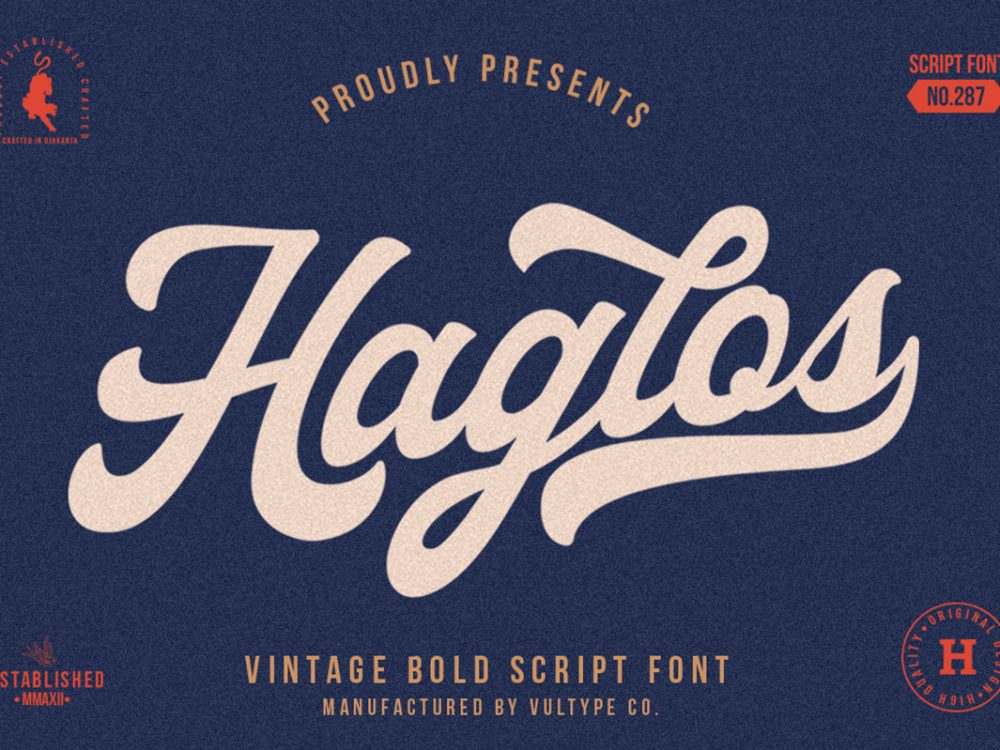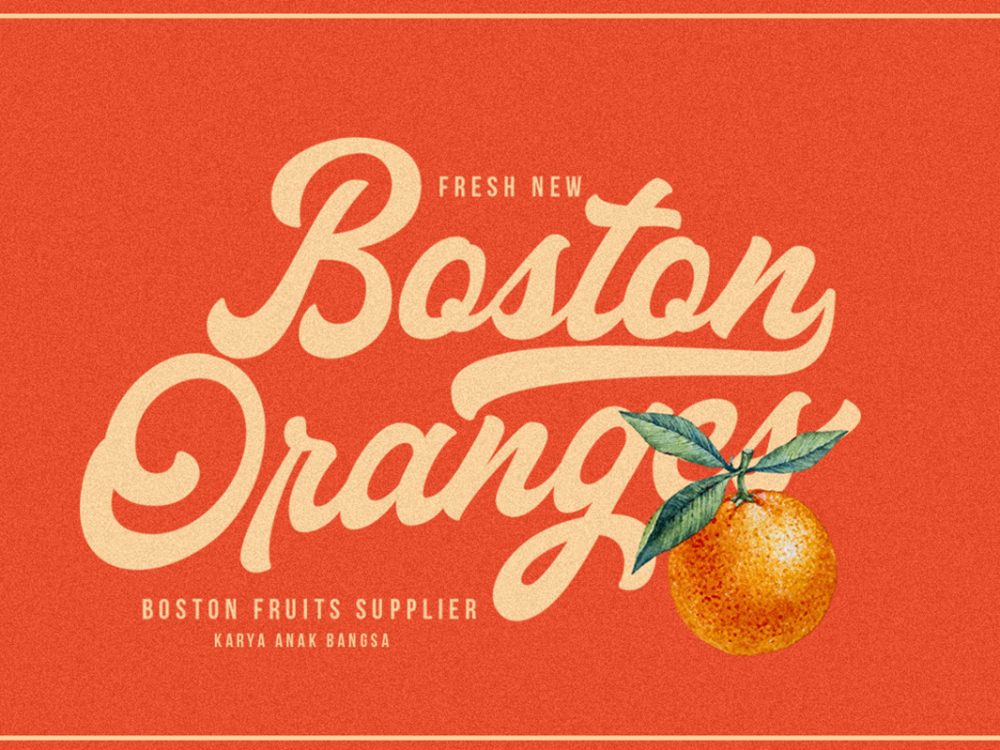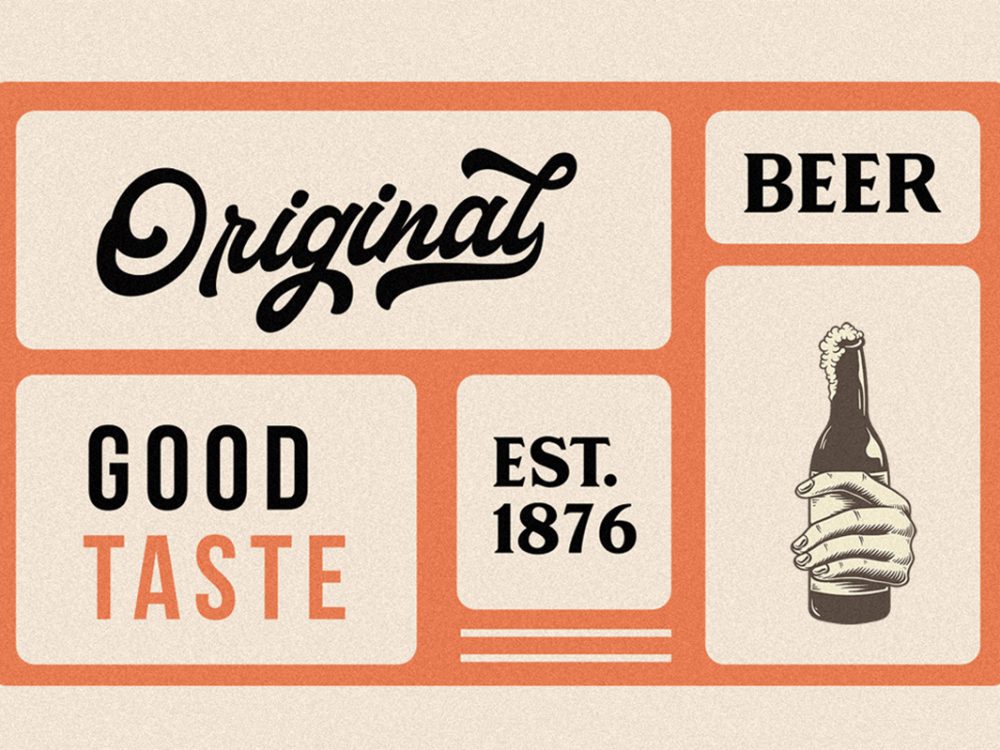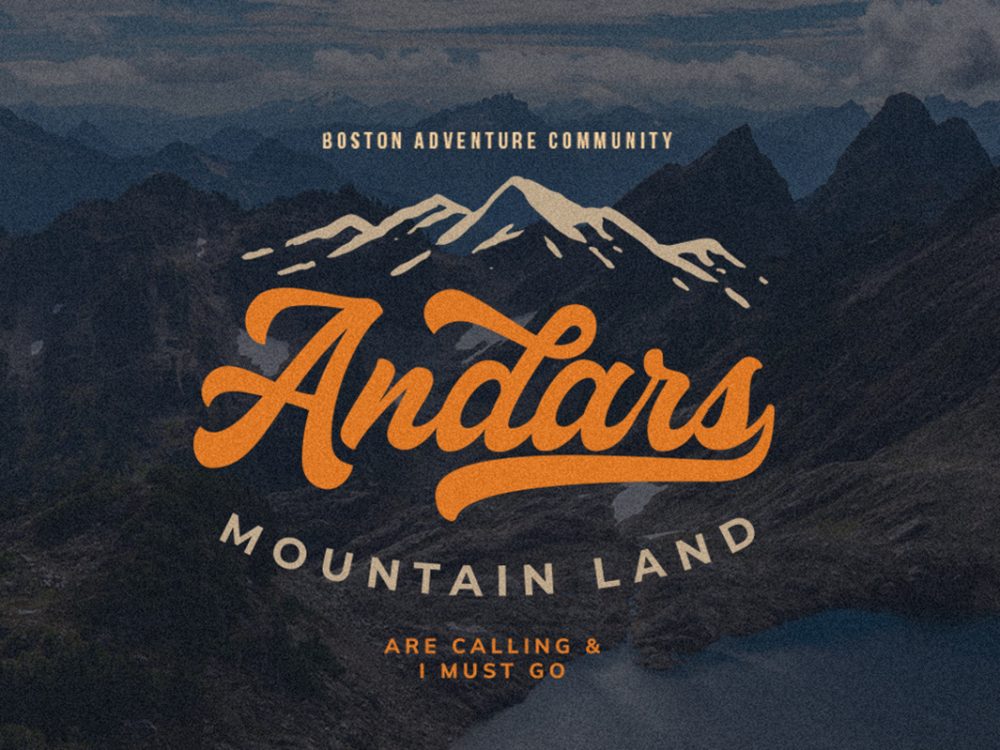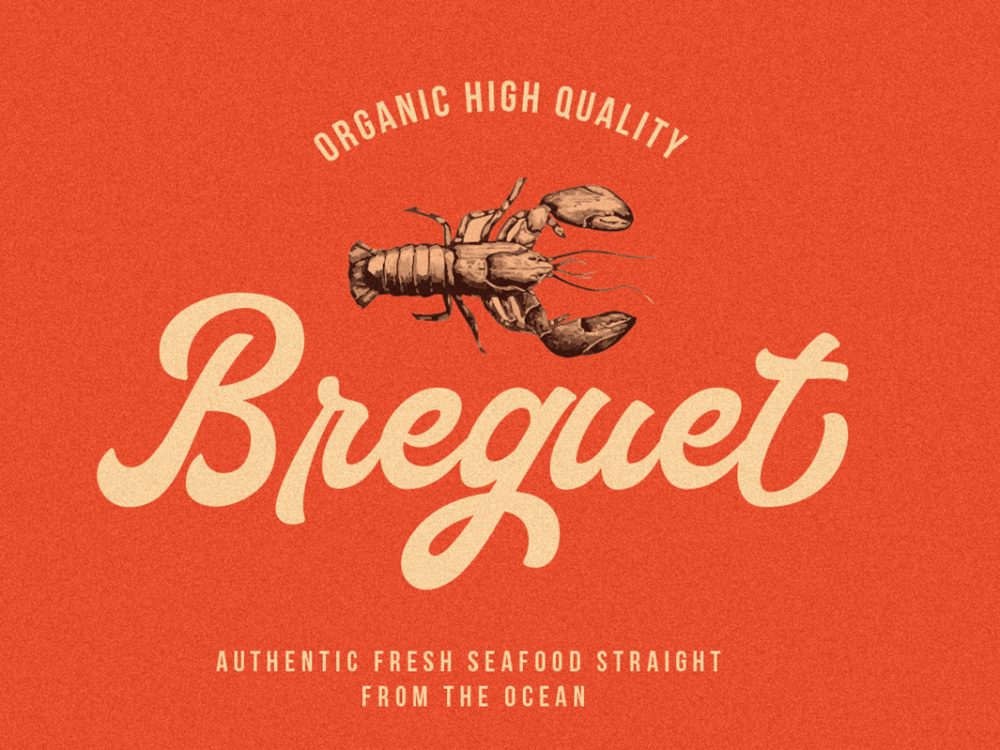
Haglos Free Font
Haglos Free Font is a stylish handwritten font that features elegant bold style and will help you create unique design projects in vintage style as well as increase your professional level. Use this font to create memorable vintage posters, postcards, branding, flyers, and more. Improve the quality and increase the popularity of your design projects by using this font. If you like it don’t forget to check out the full version.